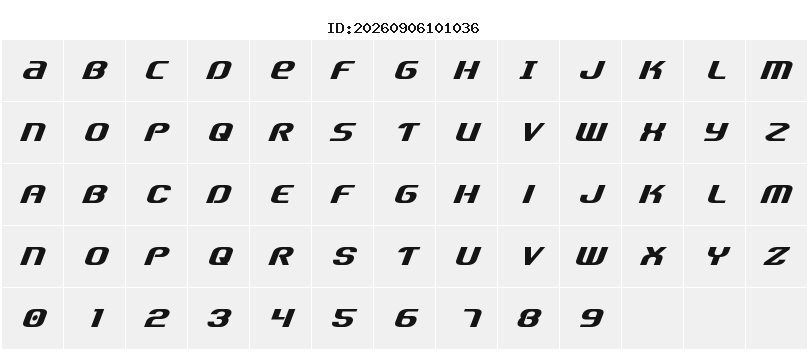
Team America Condensed Preview
• Font Name: Team America Condensed
• Font Style: Condensed
• Font ID: Team America Condensed: 2015
• Full Font Name: Team America Condensed
About Team America Condensed.ttf
Team America Condensed.ttf is a modern, elegant sans-serif font designed for ultimate readability and visual harmony. Perfect for branding, headlines, web design, and print materials.